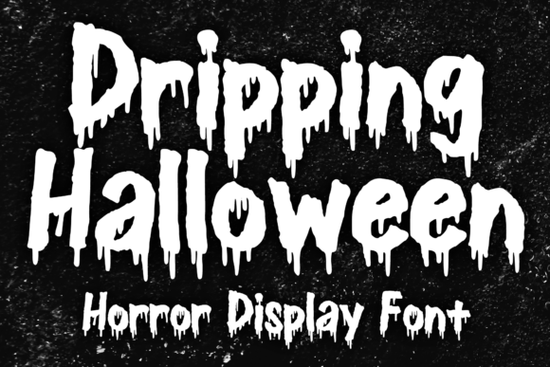
Looking for a font that adds a dramatic, spooky vibe to your designs? The Dripping Halloween Font is a unique typeface that brings a sense of horror and mystery to any project. With its dripping effect, it mimics blood, slime, or melting liquid, making it ideal for Halloween, horror, or gothic themes. Whether you're creating t-shirts, posters, or greeting cards, this font can help you stand out with its bold and eye-catching style.
If you're into vintage horror movies, horror comics, or even metal music, you'll appreciate the aesthetic of this font. It’s designed to evoke strong emotions and create an atmosphere that feels both eerie and artistic. The exaggerated drips add a layer of visual interest that makes it perfect for display purposes rather than everyday text.
The Dripping Halloween Font works well in a variety of creative projects. You can use it for merchandise like t-shirts, stickers, or banners, or for more personal items like book covers, party invitations, or digital art. Its versatility means it can fit into many different design styles as long as the theme aligns with the spooky, horror, or Halloween vibe.
How to Use the Dripping Halloween Font
When using the Dripping Halloween Font, consider the context of your design. Since it's a display font, it's best suited for headlines, titles, or short phrases rather than long paragraphs. The dripping effect may not be as effective when used in large blocks of text. Instead, focus on using it where it can make the biggest impact, such as in logos, posters, or social media graphics.
For best results, pair it with simpler fonts for body text. This contrast helps maintain readability while still allowing the Dripping Halloween Font to shine. You can also experiment with color and background to enhance the spooky feel. Dark backgrounds with bright, dripping text often work well for a dramatic effect.
Why Choose This Font Over Others?
While there are many Halloween-themed fonts available, the Dripping Halloween Font stands out due to its unique visual style. Unlike standard horror fonts that rely on jagged edges or sharp lines, this one uses a fluid, dripping effect that gives it a more dynamic and unpredictable look. This makes it especially useful for designs that want to convey a sense of movement or danger.
Best Practices for Using the Dripping Halloween Font
- Use it for headlines and titles to draw attention and set the tone.
- Pair it with clean, readable fonts for body text or longer content.
- Experiment with colors to match the mood of your design dark reds, blacks, and grays often work best.
- Test it at different sizes to ensure the dripping effect remains visible and impactful.
Whether you're a designer, crafter, or small business owner, the Dripping Halloween Font can add a unique touch to your work. Its ability to create a strong visual impression makes it a valuable addition to any font library, especially if you're working on seasonal or themed projects.
Remember, the key to using this font effectively is to understand its purpose and limitations. It's not meant for every type of project, but when used correctly, it can elevate your designs and make them more memorable.
Take some time to experiment with the Dripping Halloween Font and see how it fits into your creative workflow. You might find it becomes a go-to choice for any project that needs a little extra flair and a lot of spooky energy.
Once you’re ready, you can begin incorporating the Dripping Halloween Font into your next project. Whether it's for a Halloween event, a horror-themed print, or just a fun creative challenge, this font is sure to add a distinctive and memorable element to your work.
By following these steps, you’ll be able to make the most of the Dripping Halloween Font and create designs that truly capture the spirit of the season.